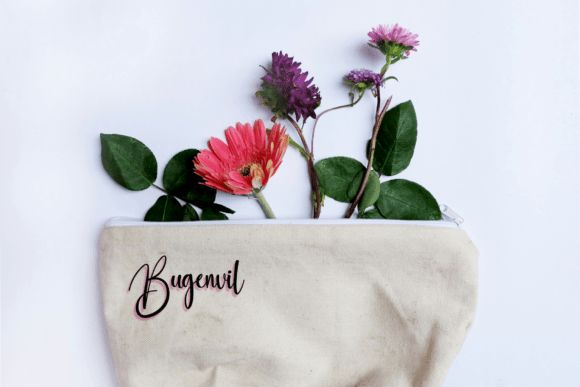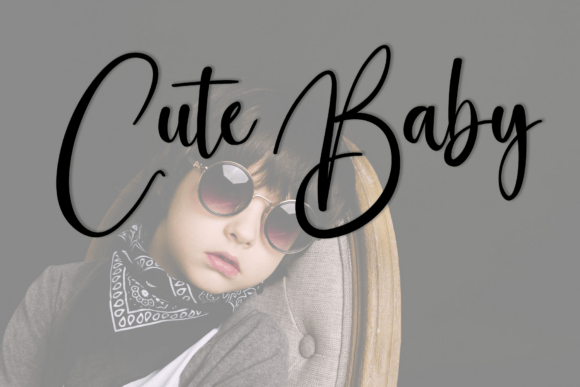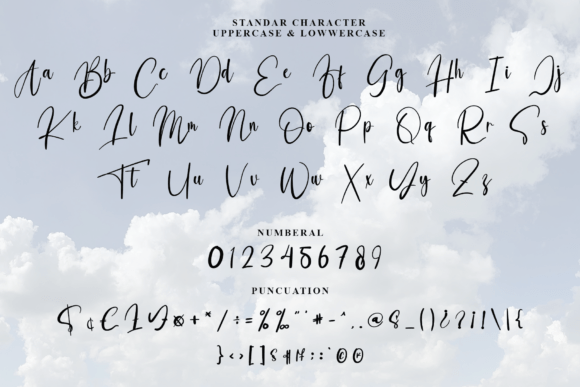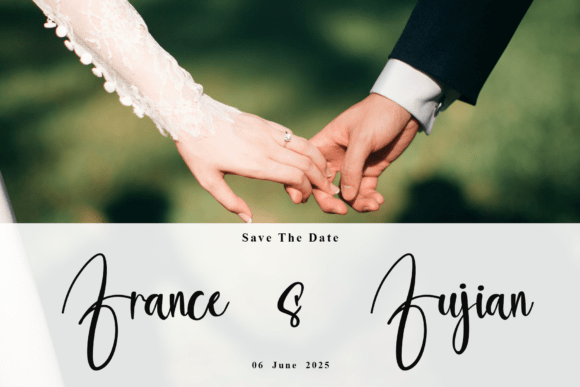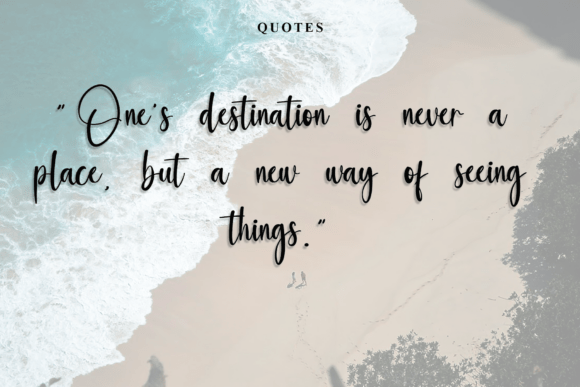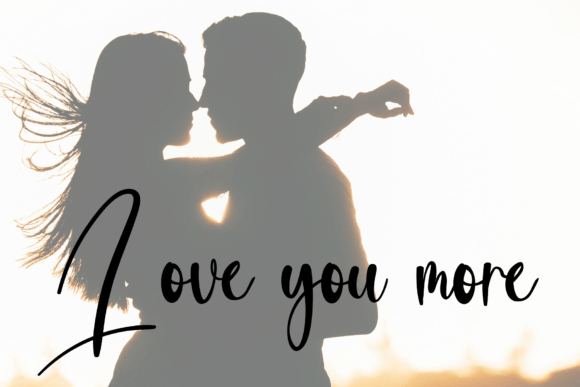
The Magical World of Disney Princess Font
Have you ever been working on a design project, and suddenly, you’re stuck on finding the perfect font? I recall a recent experience where I was designing a baby shower invitation for a friend, and I just couldn’t find a font that captured the sweetness and innocence of the occasion. That’s when I stumbled upon the Disney Princess Font, and it instantly became my go-to choice. In this article, we’ll dive into the world of Disney Princess Font, exploring its features, uses, and some helpful tips on how to make the most of it.
A Personal Review of Disney Princess Font
So, what makes Disney Princess Font so special? Let’s take a closer look.
What I Love About Disney Princess Font
- ✨ Gentle Curves: The font features soft, rounded curves that give it a warm and inviting feel, perfect for baby-related designs.
- ✅ Playful Letterforms: Each letter is carefully crafted to resemble the playful and whimsical style of Disney princesses.
- 🌸 Variety of Uses: From baby shower invitations to children’s books, this font is versatile and can be used in various design projects.
While Disney Princess Font is a delightful typeface, there are a few things to keep in mind:
- 🤔 Limited Character Set: The font may not have an extensive character set, which could limit its use in certain projects.
- ⚠️ Not Suitable for Body Text: Due to its playful nature, Disney Princess Font might not be the best choice for body text, especially in larger blocks of content.
The Backstory of Disney Princess Font
The Disney Princess Font was designed to capture the magic and wonder of Disney’s beloved princesses. Inspired by the iconic style of Disney animation, this font brings a touch of fairy tale charm to any design project.
| Font Name | Disney Princess Font |
| Author | pinkmeca |
Q: What is the Disney Princess Font?
A: The Disney Princess Font is a delightful and charming typeface that captures the innocence and sweetness of infancy.
Q: What can I use the Disney Princess Font for?
A: You can use the Disney Princess Font for baby-related designs, baby shower invitations, children’s books, and more.